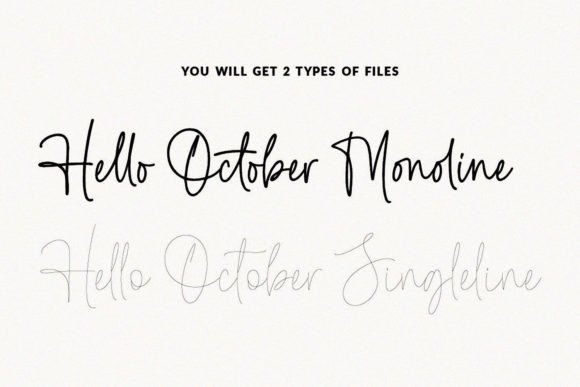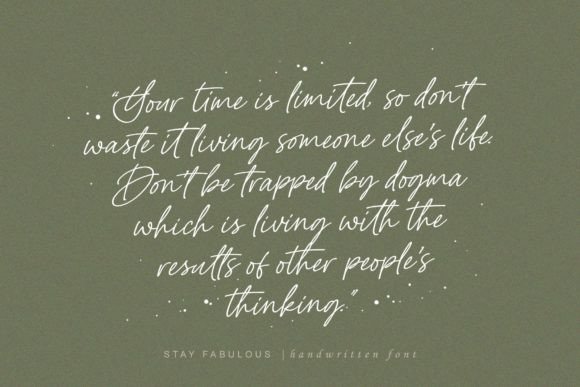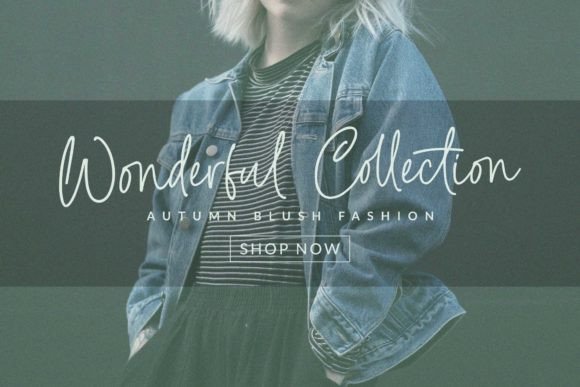
Hello October Font: A Romantic Handwritten Script for Wedding Designs
About the Hello October Font
Let us introduce you to Hello October Font, where timeless design meets modern craftsmanship. Hello October is an authentic handwritten font with a romantic touch. Masterfully designed to become a true favorite, this font has the potential to bring each of your creative ideas to the highest level!
Hello October’s romantic, handwritten style is ideal for projects requiring a touch of personal warmth. It excels in short headlines, wedding invitations, logos for boutiques or artisan businesses, and social media graphics where its authentic feel shines. Avoid using it for large blocks of body text or UI elements; its informal nature hinders readability in extended passages.
Pairing Hello October with a clean sans-serif like Montserrat or a classic serif such as Garamond creates a balanced aesthetic. For a more playful feel, consider pairing it with a script font like Pacifico, but use it sparingly to avoid visual clutter. The overall personality is friendly, approachable, and subtly elegant.
Its inherent charm works best for brands that project handcrafted quality, intimate experiences, or a feminine aesthetic.
Hello October Font Usage Examples
Hello October Font Example